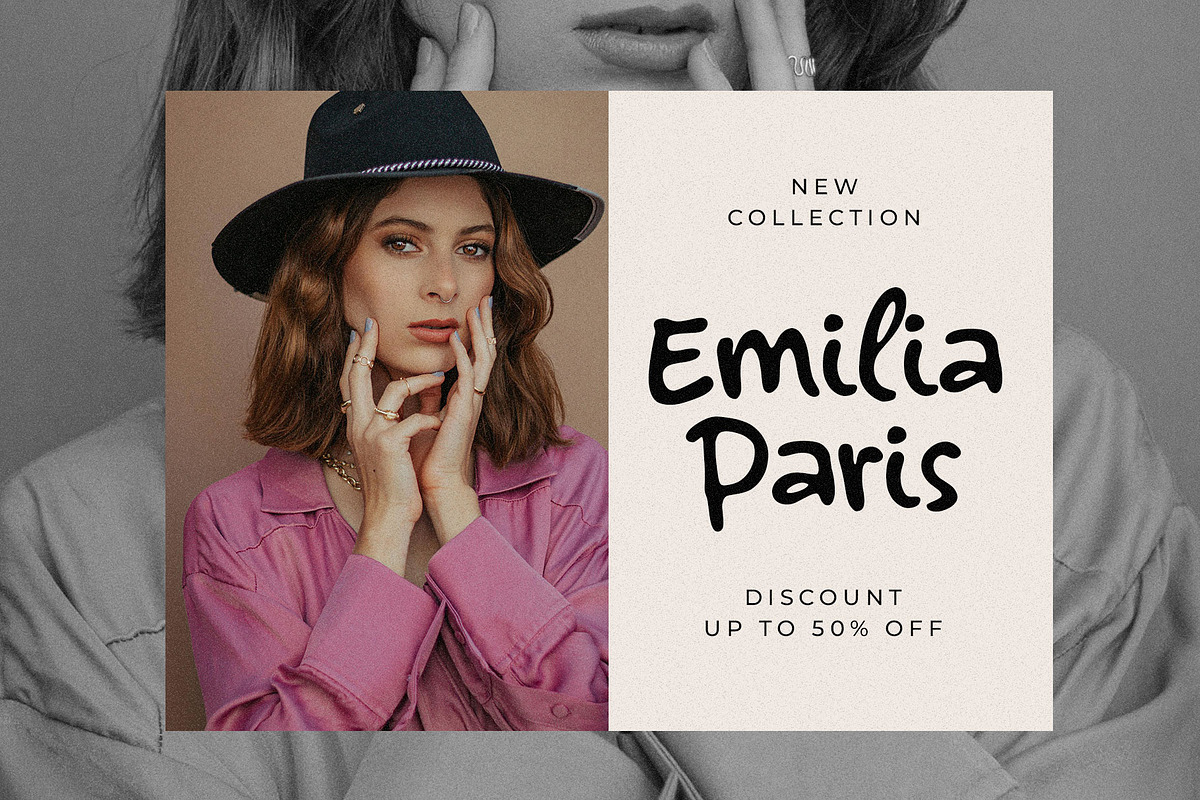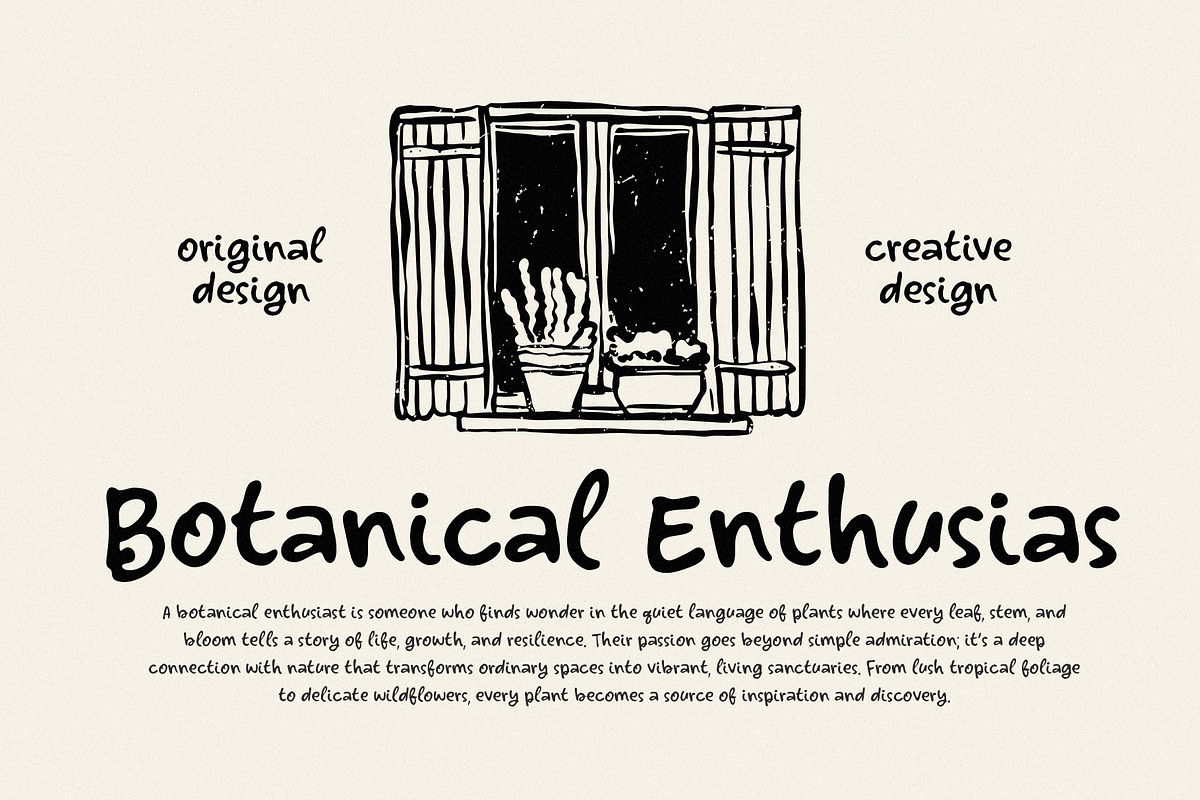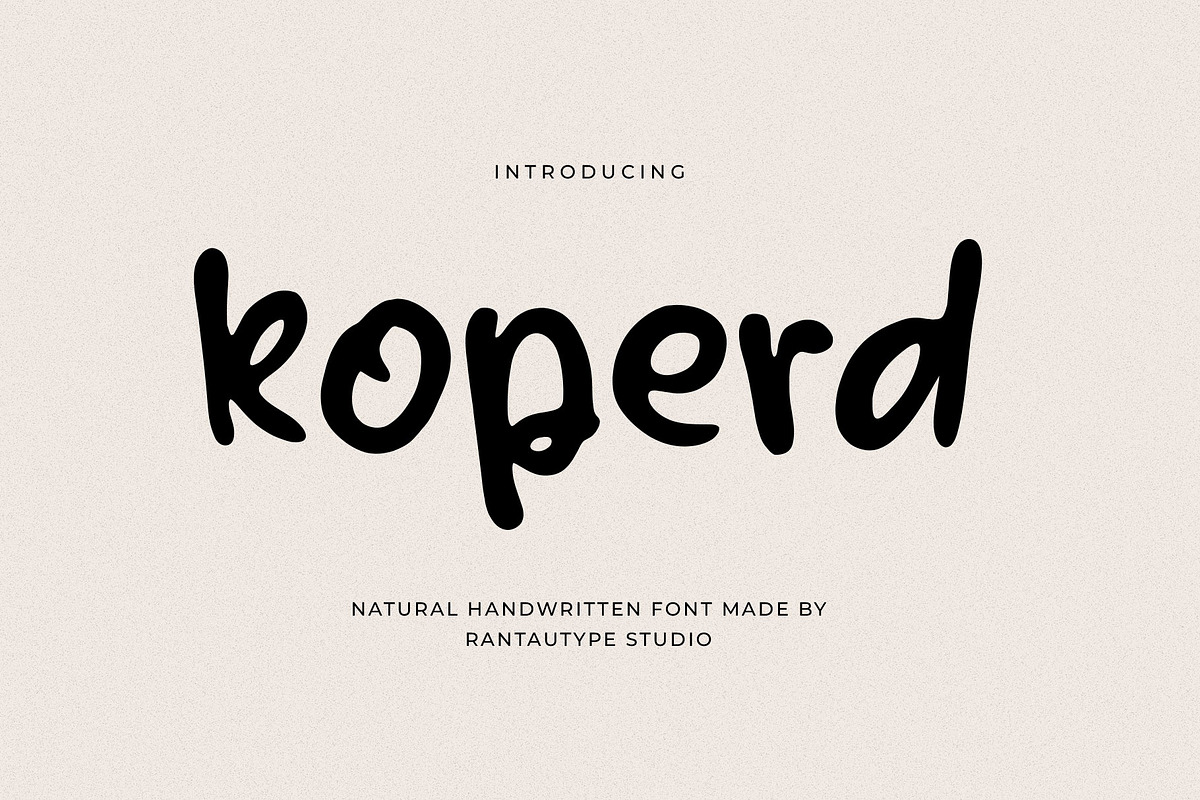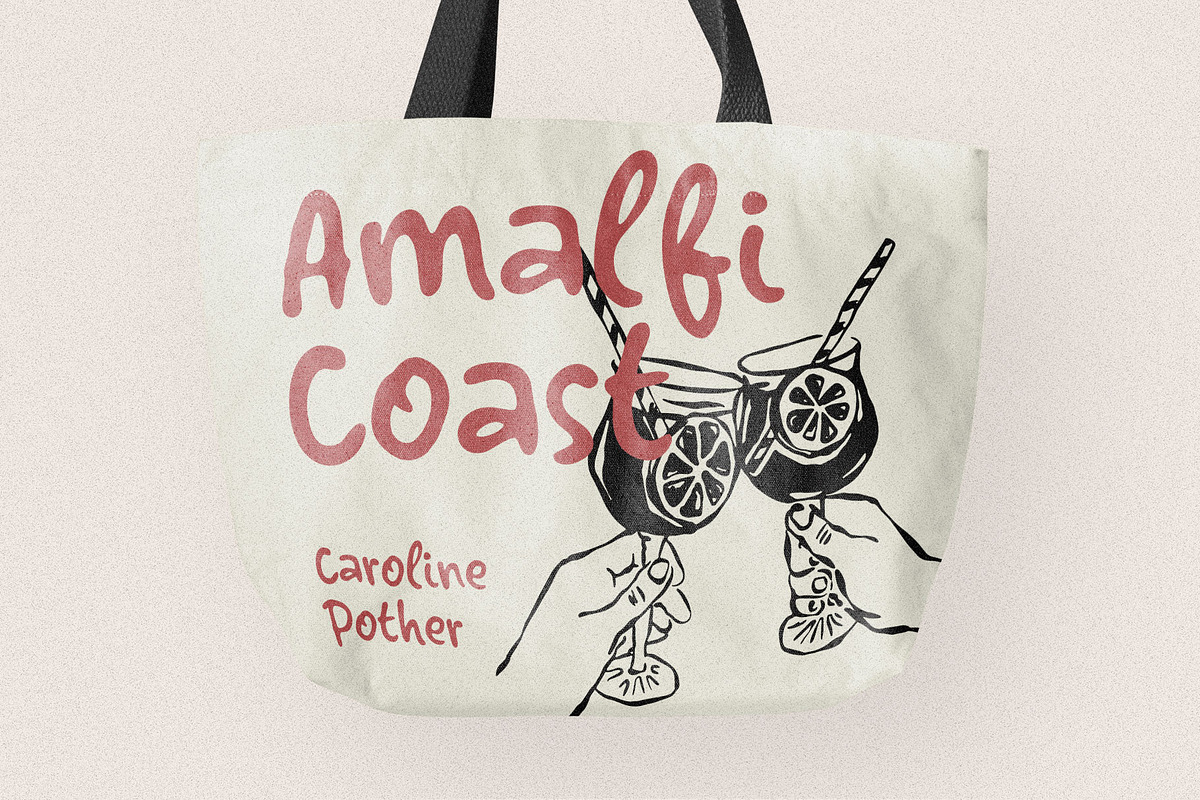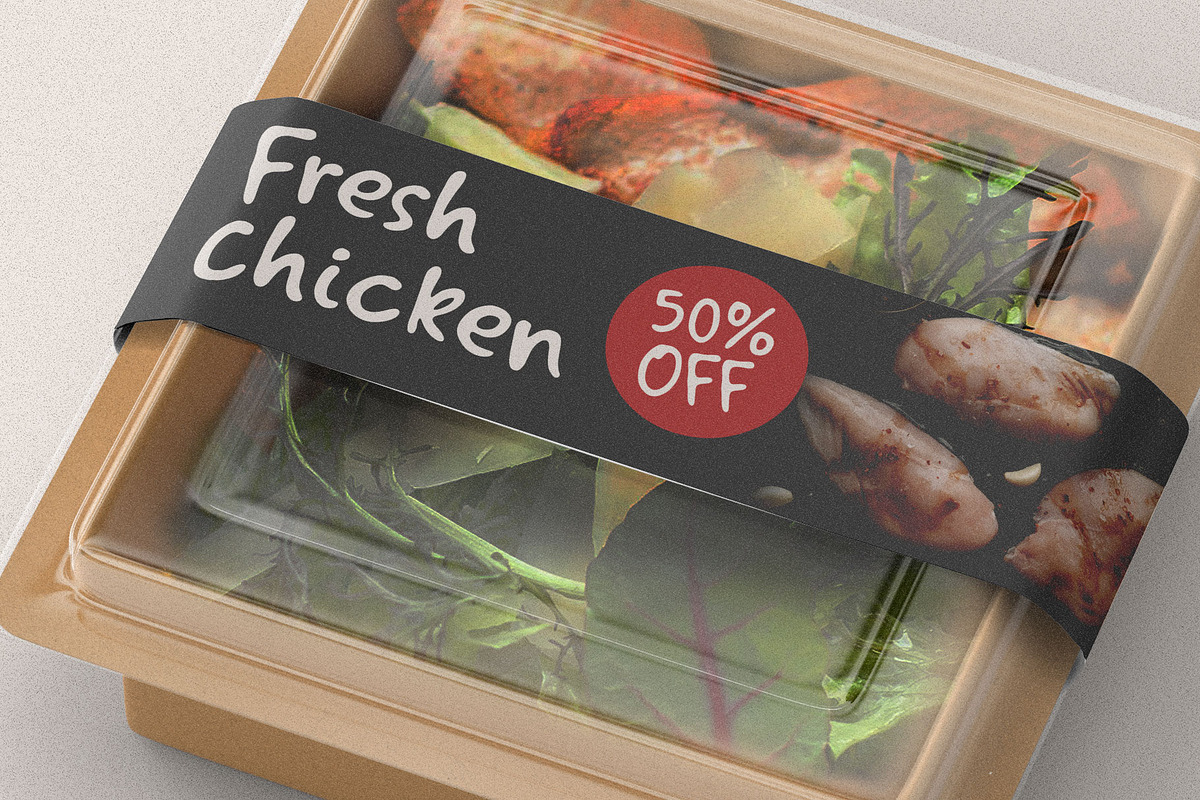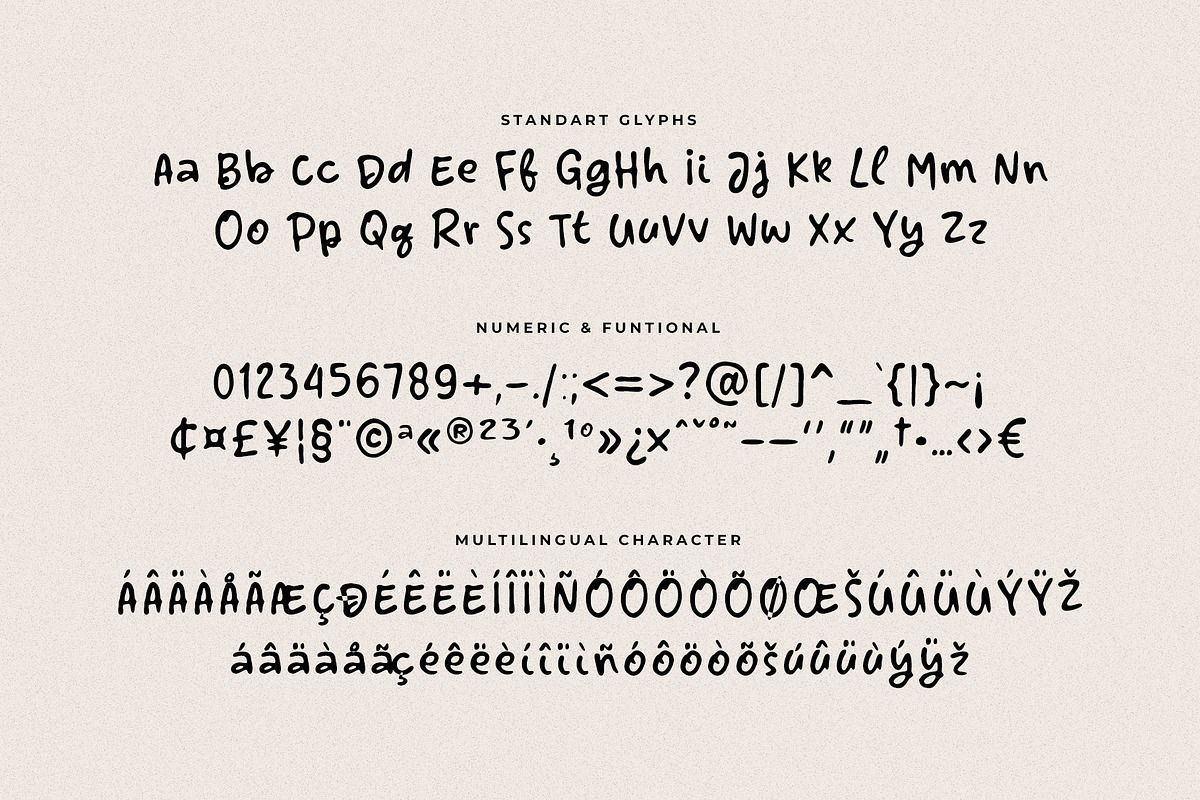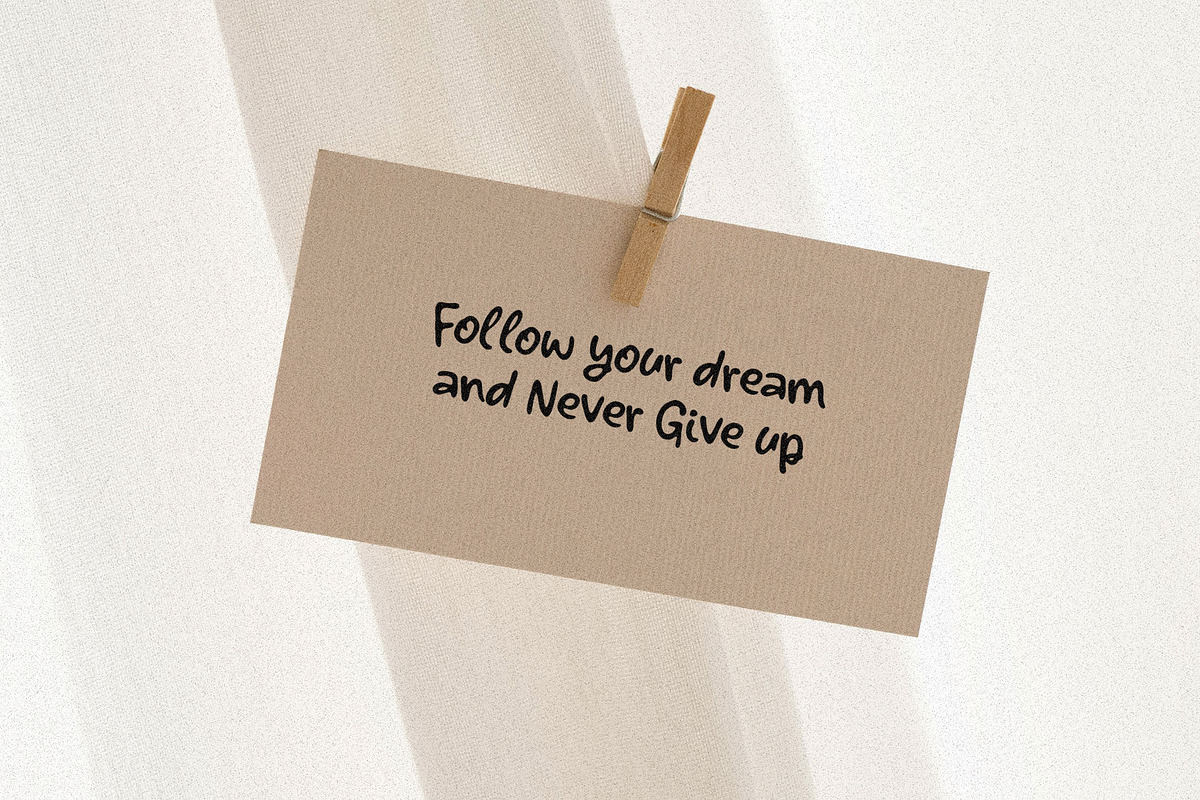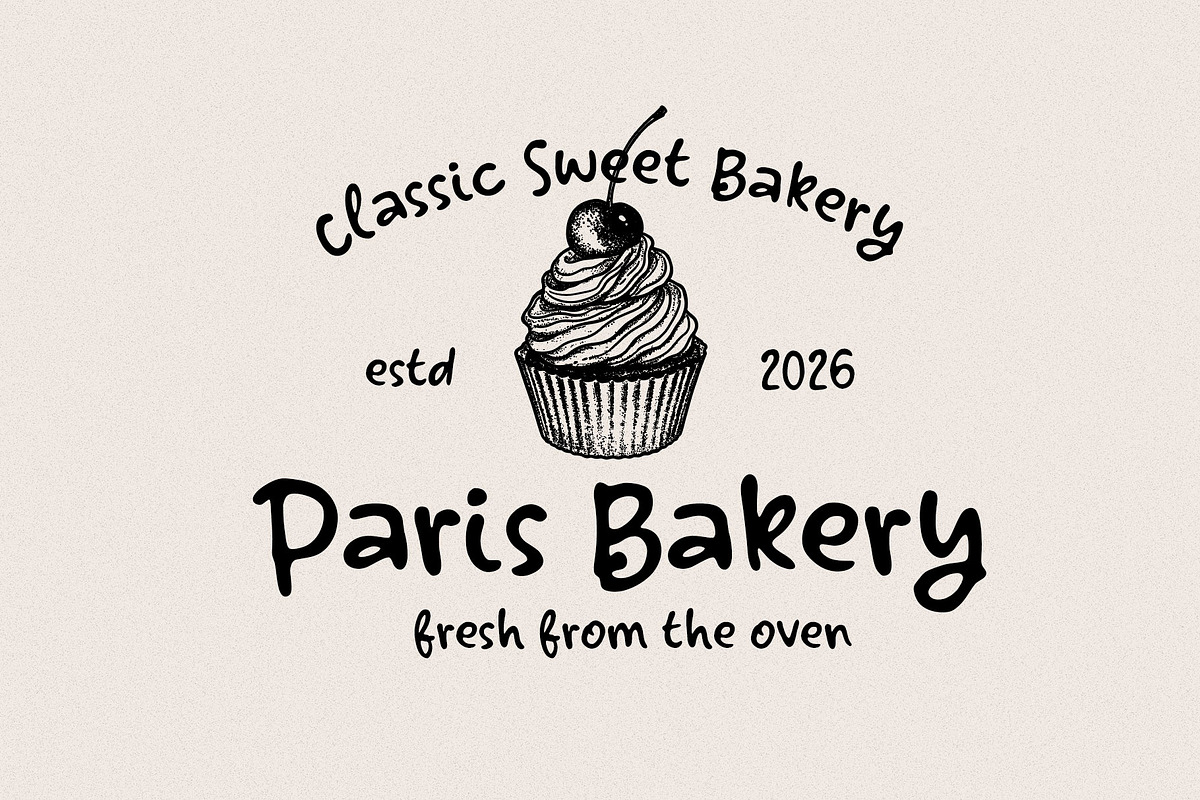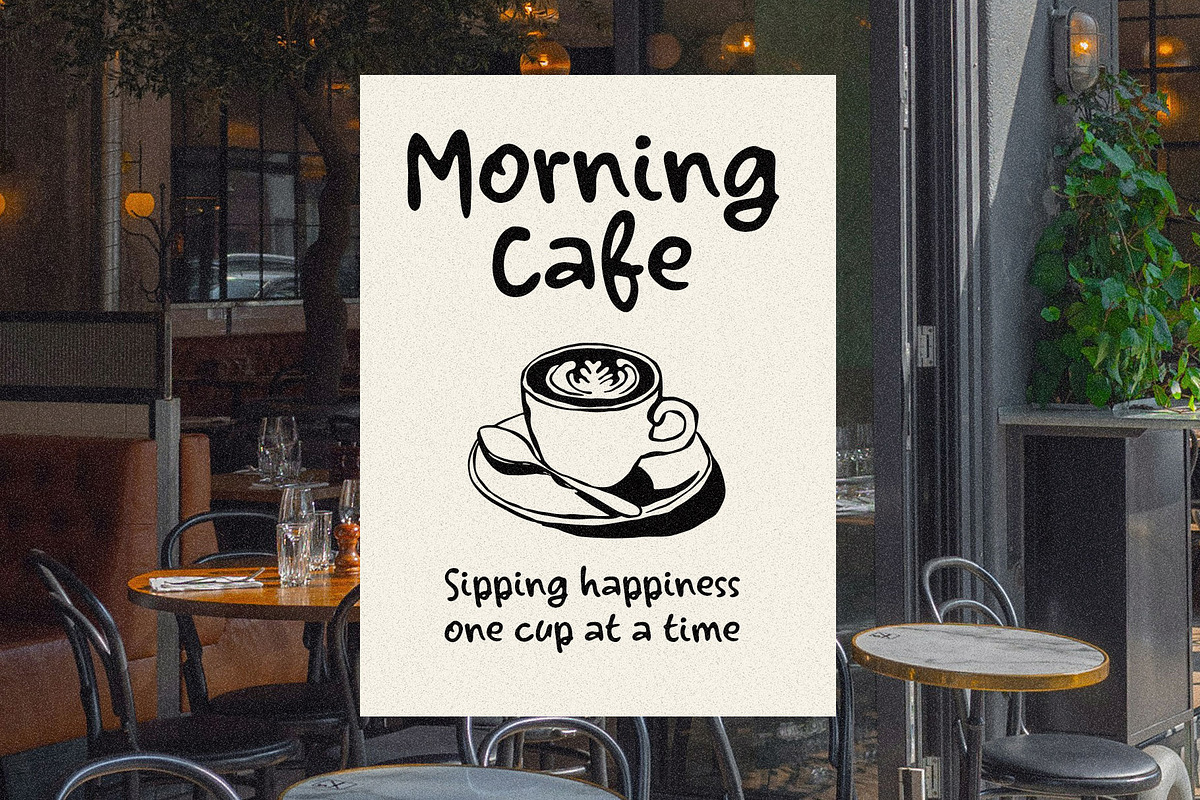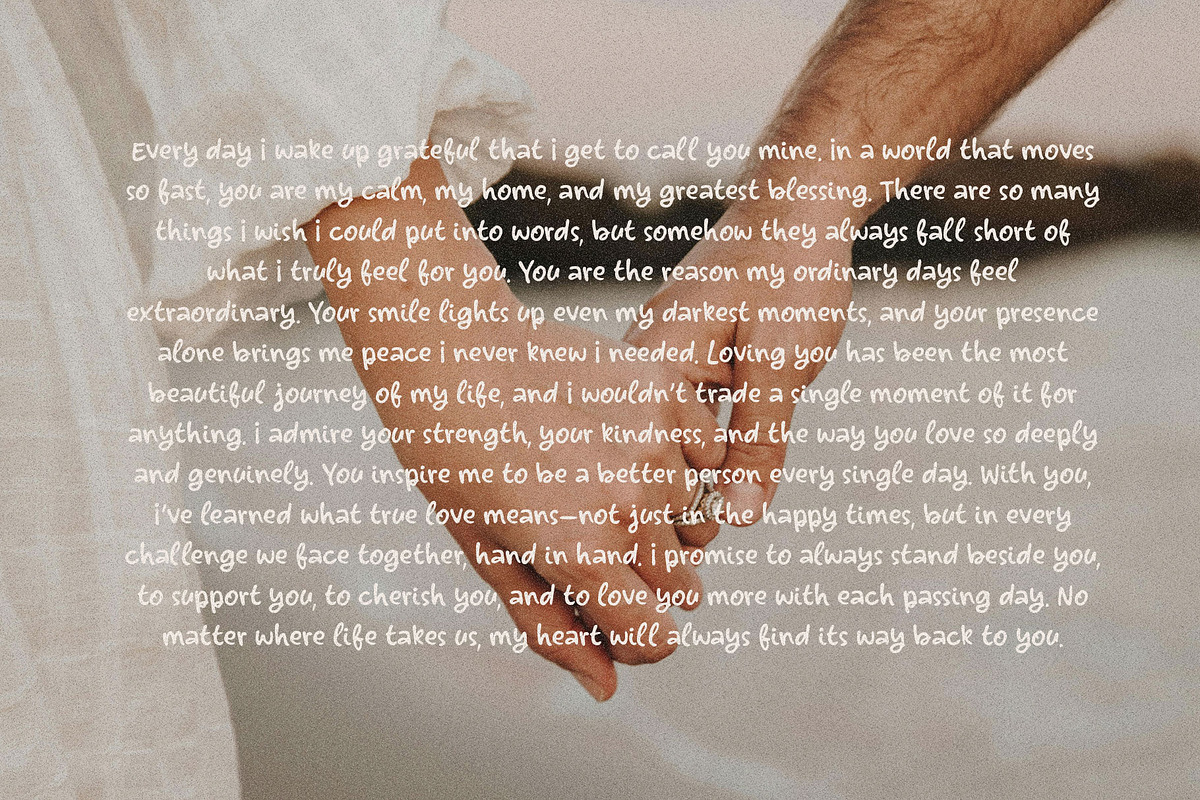
Koperd Natural Handwritten Font
Koperd is handwritten font captures the effortless beauty of real pen-on-paper expression, bringing warmth, authenticity, and personality into every design. Inspired by organic strokes and the fluid movement of handwriting.
Koperd come with confident and strong brush character. Harca is a perfectly choice for any creative endeavor, creating, modern, lifestyle design such as logotype, title, cover, branding, invitations, wedding designs, display and magazine, social media posts, advertisements, printed quotes, product packaging, corporate brand, product designs, labels, photography, watermarks, special events and any other project with modern touch.
- Standart Glyphs
- Alternate and ligature
Fonts include Multilingual Character for: Afrikaans, Albanian, Asu, Basque, Bemba, Bena, Breton, Chiga, Cornish, Dutch, English, Estonian, Filipino, Finnish, Friulian, Galician, Gusii, Indonesian, Irish, Italian, Kabuverdianu, Kalenjin, Kinyarwanda, Luo, Luxembourgish, Luyia, Machame, North, Oromo, Portuguese, Quechua, Romansh, Rombo, Rundi, Rwa, Samburu, Sango, Sangu, Scottish, Gaelic, Sena, Shambala, Shona, Soga, Somali, Spanish, Swahili, Swedish, Swiss, German.